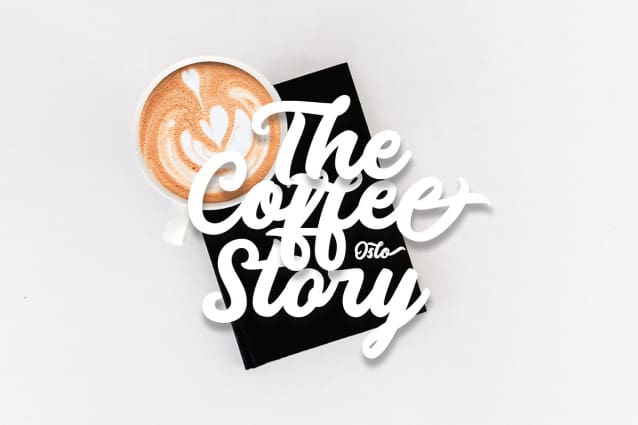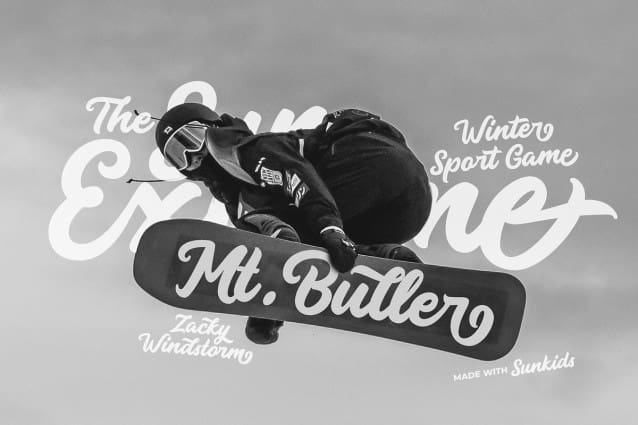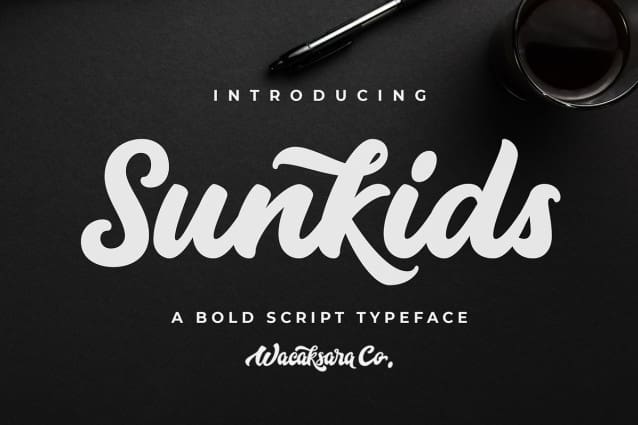
Sunkids Script Font
Sunkids Script Font is a bold connected script font inspired by the spirit of sports and Olympic Games. This font is great for your next creative project such as logos, printed quotes, invitations, cards, product packaging, headers, Logotype, Letterhead, Poster, Apparel Design, Label, and etc.
Sunkids comes with uppercase, lowercase, numerals, accents (Multilingual characters), punctuations and so many variations on each character include OpenType alternates, PUA encoded and common ligatures.